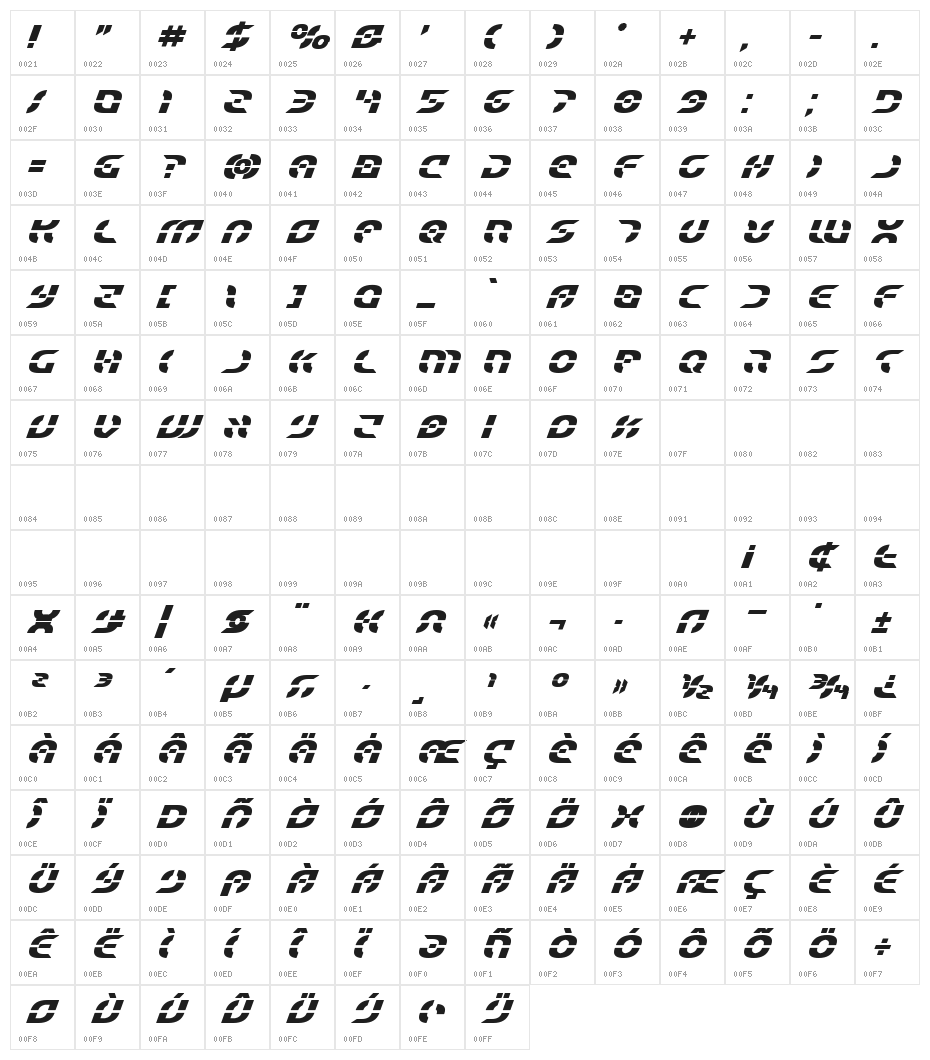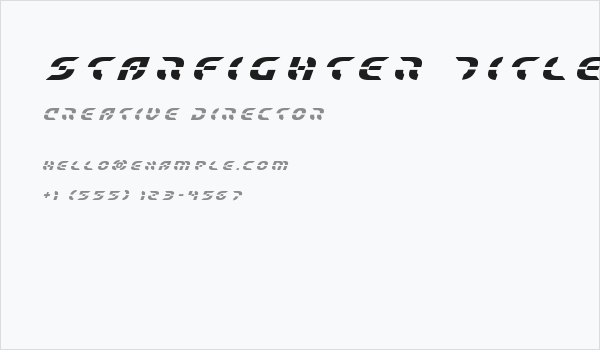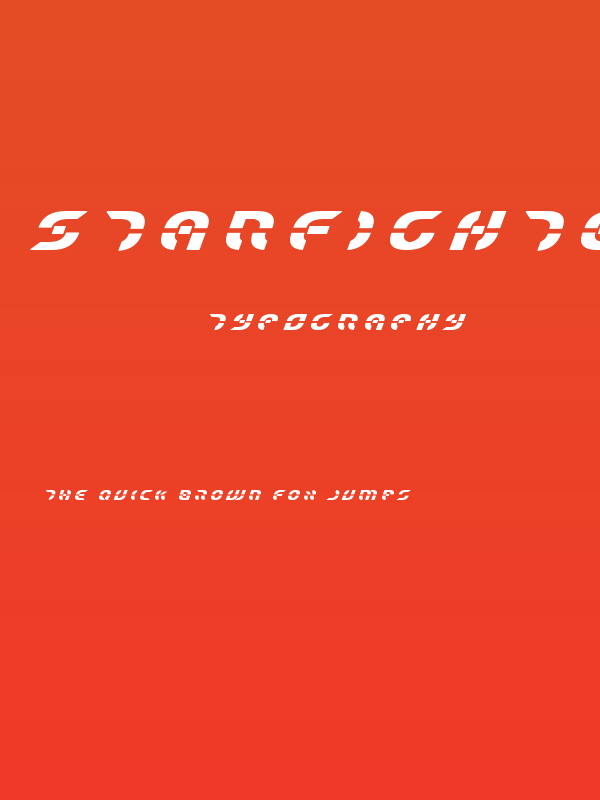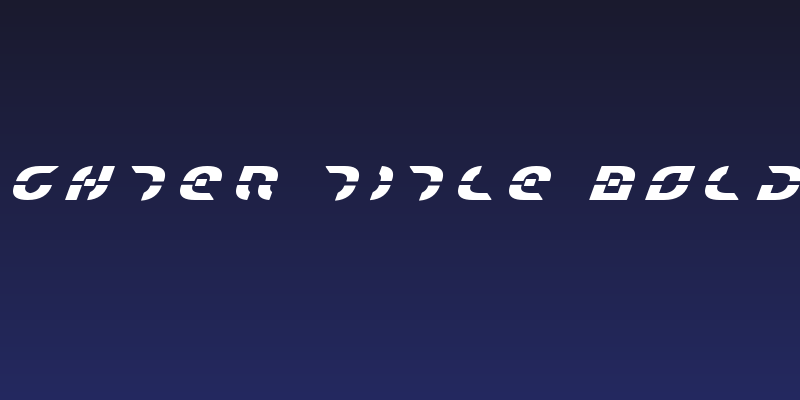
Starfighter Title Bold Italic Font
Starfighter Title Bold Italic Description
This font features a bold and italicized style with a futuristic and dynamic appearance. The characters are designed with a distinct geometric flair, incorporating sharp angles and smooth curves that create a sense of movement and speed. The uppercase and lowercase letters maintain a consistent style, with the lowercase letters mirroring the uppercase in form but reduced in size. Numbers and special characters follow the same design principles, ensuring uniformity across all glyphs. The font's unique design makes it stand out, ideal for projects that require a modern and edgy look.
| Proposed Projects | Ideal for sci-fi themed projects, video game titles, movie posters, and branding that requires a modern and edgy aesthetic. |